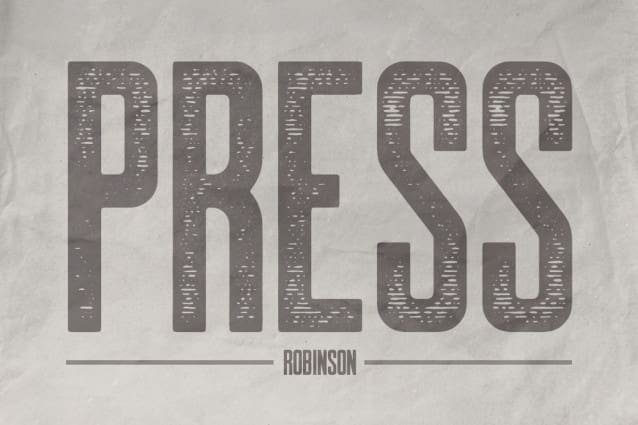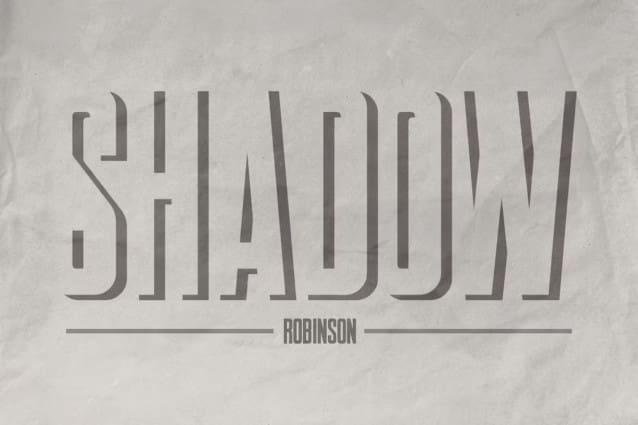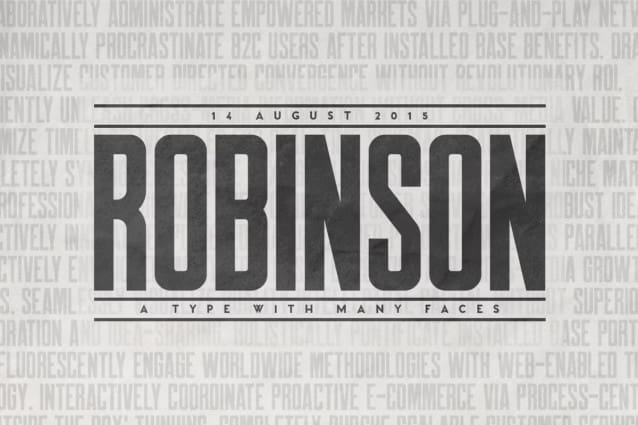
Robinson Font Family
Robinson Font Family is a font inspired by vintage newspaper titles. It’s great for having a bold and attractive title followed by smaller text. It was made specifically with magazines and posters in mind.